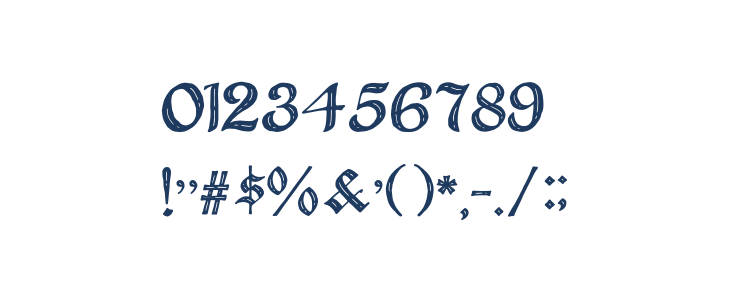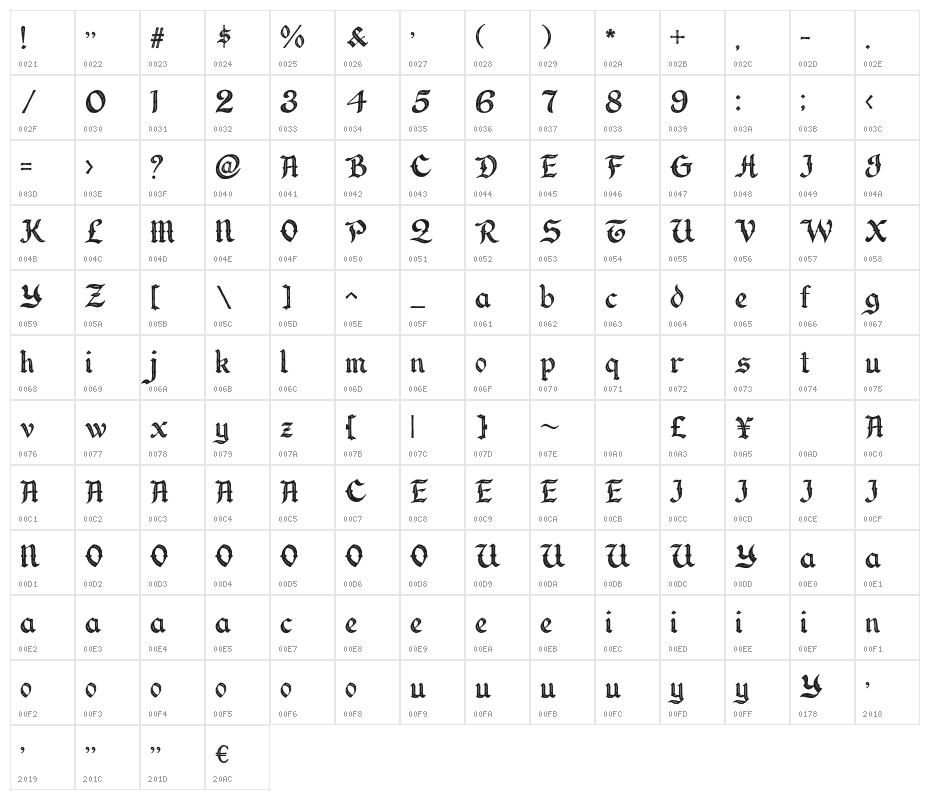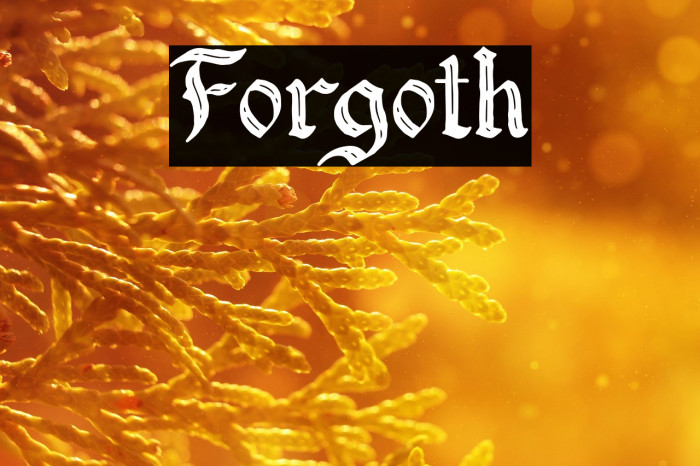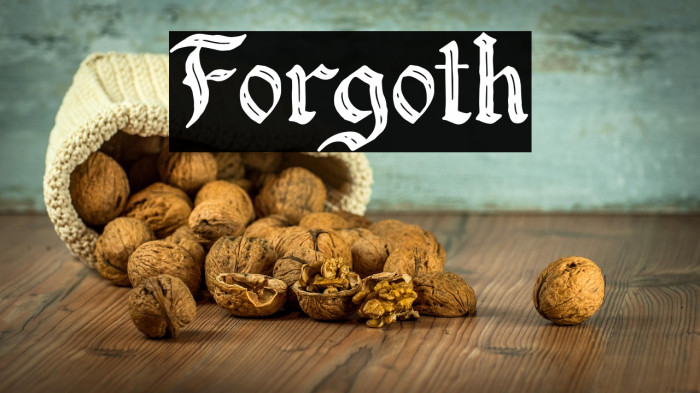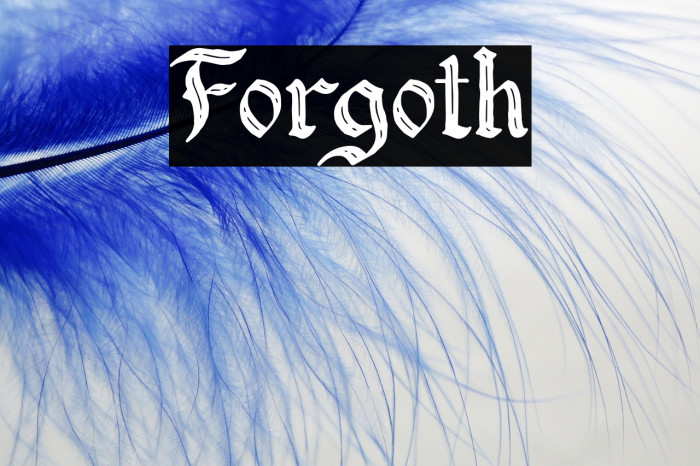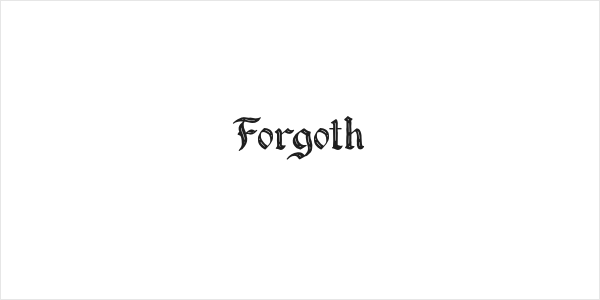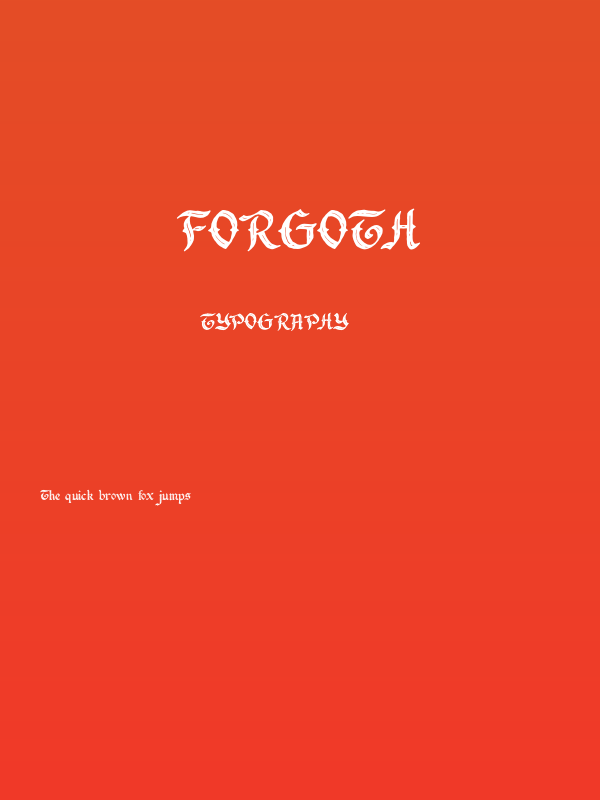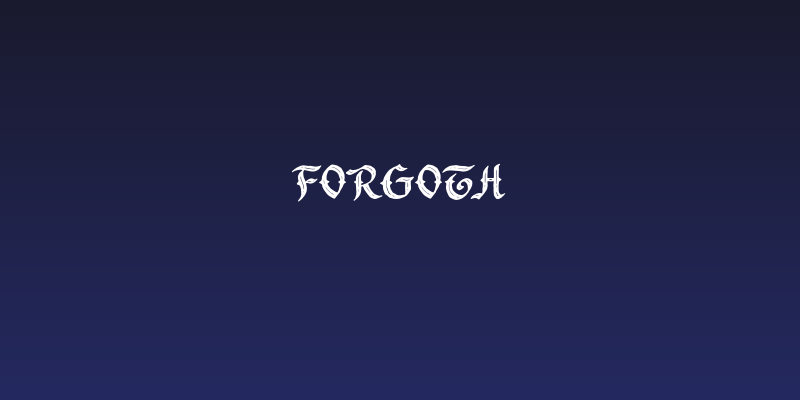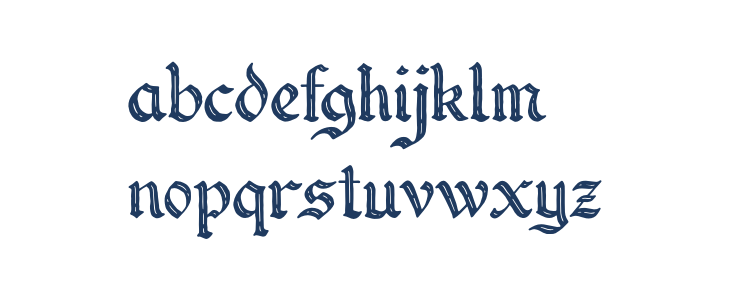
Forgoth Font
| Gesamtstil | Vintage |
| Anwendungsfall | Headlines, Logos, Decorative text |
| Vorgeschlagene Projekte | Ideal for historical-themed designs, book covers, posters, and branding that requires a gothic or medieval touch. |